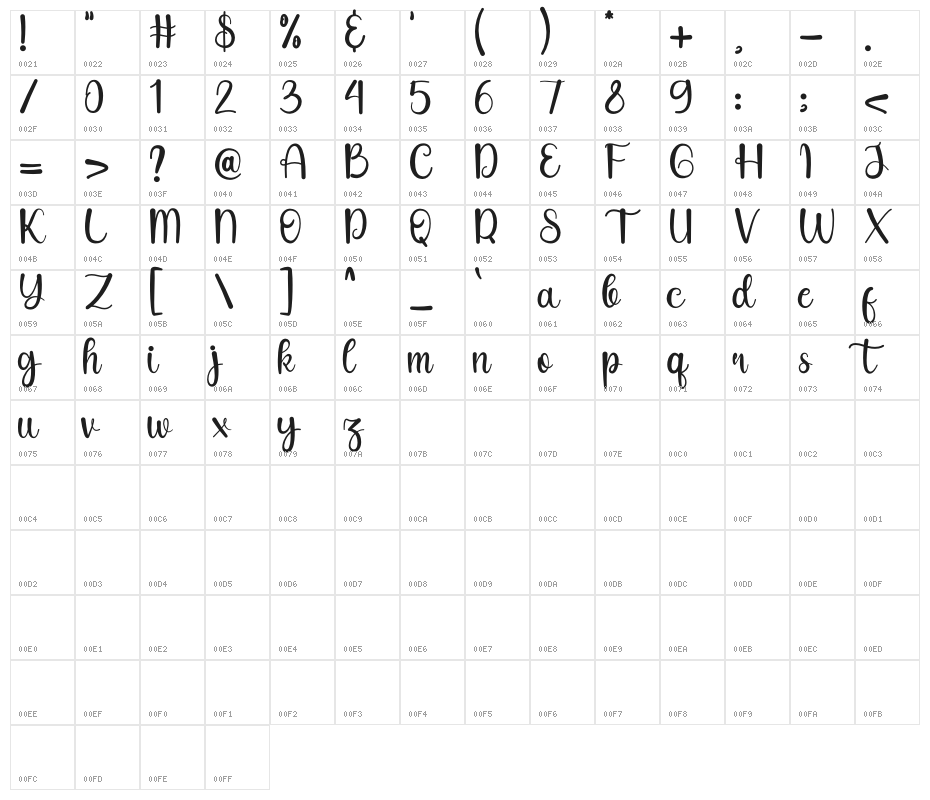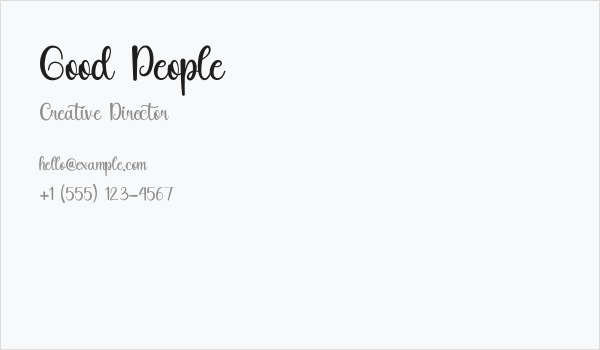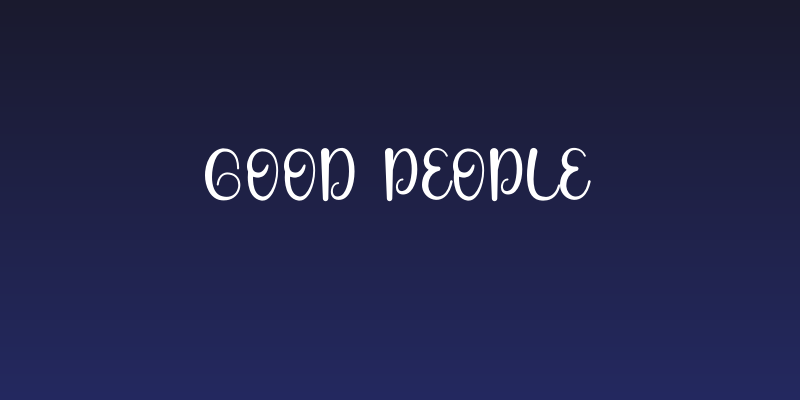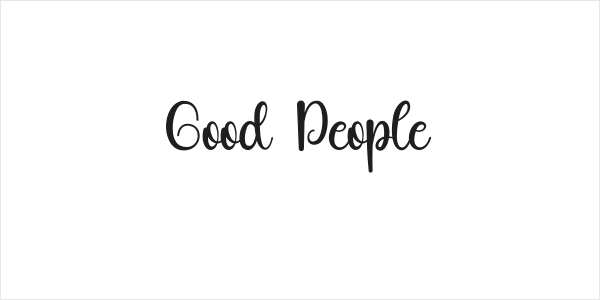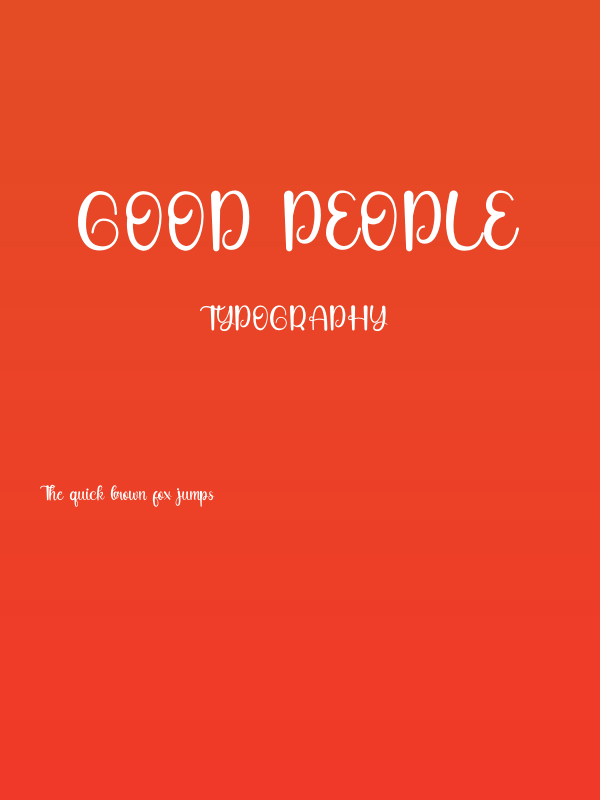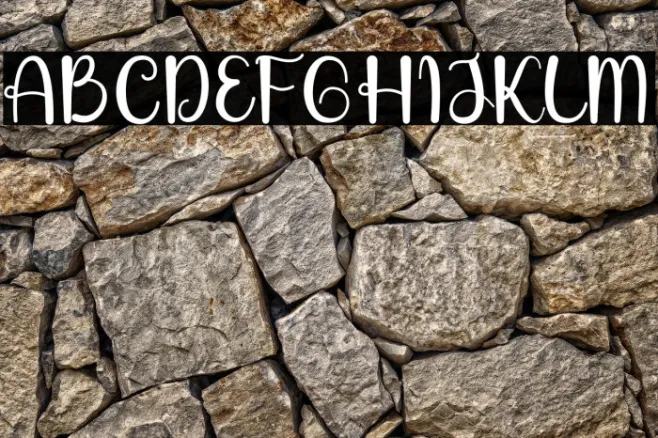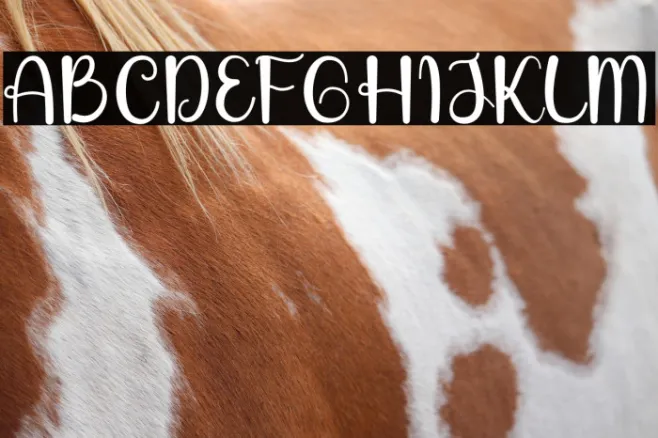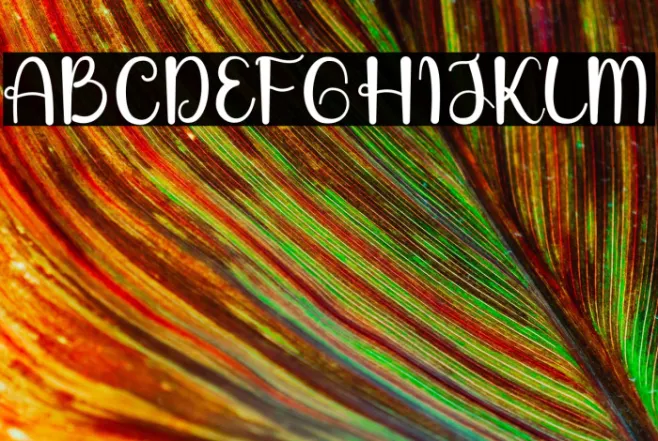
Good People Font
Good People Description
This font features a playful and whimsical script style, characterized by its flowing, interconnected letters and a hand-drawn appearance. The uppercase letters are bold and rounded, with a slight slant that adds to the casual feel. The lowercase letters maintain a consistent flow, with some letters featuring loops and curls that enhance the font's decorative nature. Numbers are bold and clear, matching the playful style of the letters. Special characters are creatively designed, maintaining the overall aesthetic. The font's unique style makes it suitable for projects that require a personal touch or a fun, informal vibe.
| Proposed Projects | Ideal for greeting cards, invitations, playful branding, and social media graphics. |